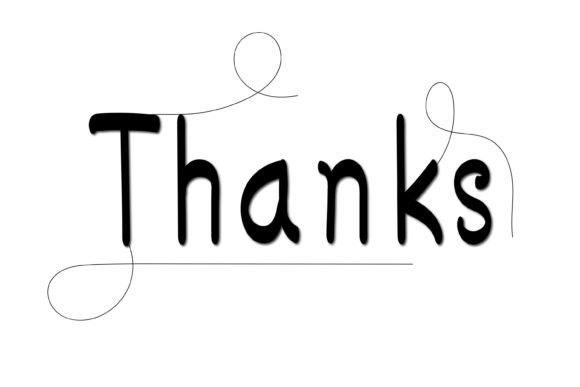
Introducing Thanks, a whimsical handwritten script font that exudes warmth and gratitude. This charming font is the brainchild of MistyDesigns, a renowned typographic artist known for creating fonts that capture the essence of human expression. Thanks is no exception, brimming with personality and a touch of playfulness that will add a unique flair to your creative projects.
Dive into the world of Thanks and discover a font that's perfect for expressing heartfelt appreciation. Whether you're crafting a heartfelt thank-you note to a friend, designing an invitation for a special occasion, or creating personalized gifts, Thanks will add a touch of warmth and sincerity that words alone can't convey.
With its carefully crafted characters and flowing lines, Thanks is a font that speaks to the heart. Its charming imperfections give it a hand-drawn feel, evoking a sense of nostalgia and authenticity. Whether you use it for personal or professional projects, Thanks is guaranteed to leave a lasting impression.
Unlock your creativity with Thanks, a font that's brimming with endless possibilities. Its versatility shines across a wide range of applications, from heartfelt letters and invitations to eye-catching posters and social media graphics. Thanks is the perfect choice for adding a personal touch to your creative endeavors, transforming ordinary words into heartfelt messages.